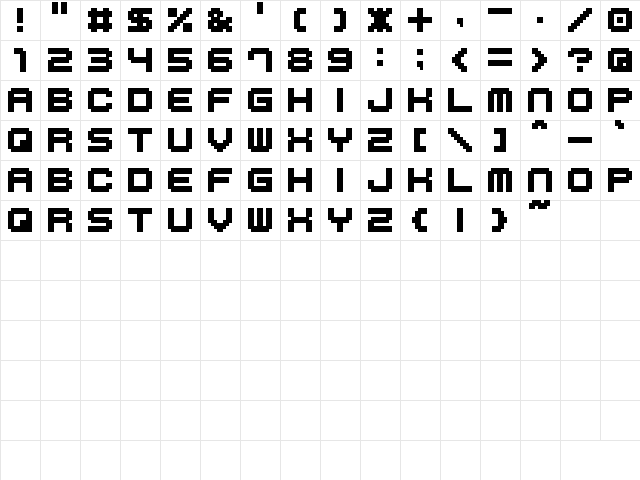
M41_LOVEBIT Regular
Design Context for M41_LOVEBIT Typeface
M41_LOVEBIT offers clean, dependable letterforms without strong stylistic allegiance, making it a practical choice for designers who need flexibility.
Pro Tip: Use M41_LOVEBIT in both headline and body roles to test its range before committing to a single application.